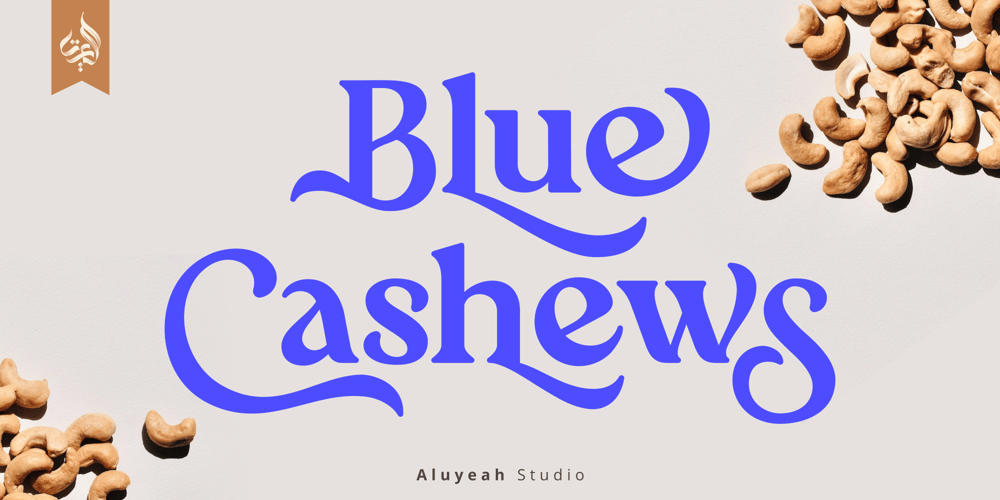
Al Blue Cashews Font Family was designed by Linggar Sundoro and published by Aluyeah Studio. Al Blue Cashews contains 1 styles and family package options. Hello Aluyeaholics!Blue Cashews’ alternates are inspired by the curved shape of a cashew with a blunt tip. Blue Cashews give the impression that we often see in the packaging of snacks, cereals, milk, and so on. So warm, sweet, fresh, crunchy and full of love!Coming with 220+ stunning and super easy to use alternates and ligatures.To get results like the preview just type B.2l.3ue.2 C.2ash.2ew.2s.3